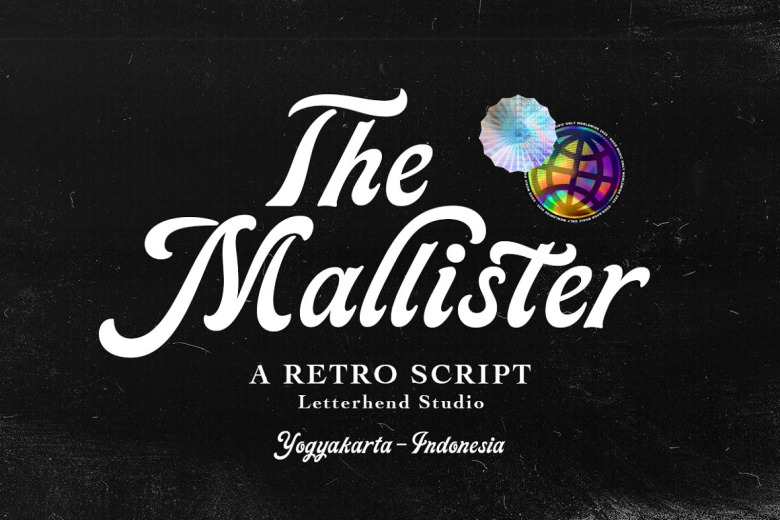
The antiquated Mallister calligraphy evoked nostalgia with its seasoned yet refined visual texture. This venerable font is artfully suited for logos, headings, signage, invitations, labels, magazines, catalogues, greeting cards, wrapping, packaging, fashion designs, cosmetics, stationery, novels, branding, and advertising materials requiring a dignified yet engaging aesthetic appeal.
The Mallister Retro Script Font